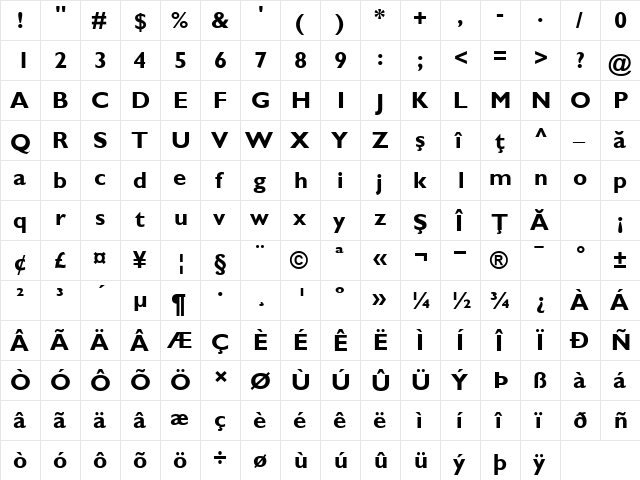
GillSansR Bold
Design Context for GillSansR Typeface
GillSansR offers clean, dependable letterforms without strong stylistic allegiance, making it a practical choice for designers who need flexibility. Its bold stroke weight gives it real presence on the page.